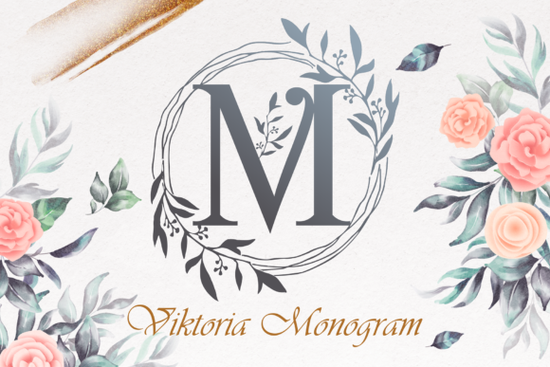
If you need a versatile script that brings a refined touch to your designs without feeling complicated, the Viktoria Monogram Font is a reliable choice for everyday creative work. This typeface belongs to the decorative font category, blending ornamental flair with clean readability. Whether you set up an Etsy shop, design custom apparel, or organize digital planners, having a monogram-style option that scales well from business cards to wall art saves time during proofing.
What specific features make this typeface worth adding to your toolkit?
Unlike heavy display fonts that demand attention at every size, this lettering maintains graceful curves and balanced spacing. It includes alternate characters and swashes that let you customize initials without third-party editing tools. The strokes stay consistent, preventing unwanted gaps when you cut vinyl or send files to a direct-to-garment printer. You will notice the capital letters have enough character to serve as standalone focal points, while the smaller caps keep text blocks legible. Many creators appreciate how the kerning holds up across different resolutions, keeping mockups accurate before rendering.
How can you realistically apply it across different creative workflows?
Crafters often reach for this style on personalized gifts because the monogram aesthetic fits neatly into circular badges, ribbon layouts, and greeting card borders. Print-on-demand sellers use it for quote-based t-shirts and tote bags where lettering needs to breathe rather than crowd the garment. Small business owners frequently drop the alternate capitals into logo lockups or packaging seals for a subtle premium feel. The package supports standard operating systems, so you can open it in Cricut Design Space, Silhouette Studio, Canva, or Adobe Illustrator without conversion headaches.
Will it complement the rest of my font library?
Yes, especially when you balance ornamental scripts with sturdy sans-serifs or classic serifs. A light geometric sans works well for body copy under a monogrammed header, while a clean slab serif anchors price tags or bullet points. If you want to explore other styles that share similar proportions, checking out curated collections like these decorative font options helps maintain visual consistency across campaigns. For contrast-heavy projects, switching to a bolder alternative like the selection at this sports-inspired font category keeps designs dynamic without sacrificing readability.
Quick tips for getting the most out of the typography
- Test scale early: Reduce your canvas to thumbnail size to ensure flourishes do not blur into noise.
- Use color wisely: Apply muted tones for stationery and crisp pastels for apparel to let the curves take center stage.
- Keep spacing intentional: Tight tracking works for large headlines, but leave extra padding around monogram blocks.
- Match line height: When stacking text above or below initials, increase vertical spacing slightly to maintain elegance.